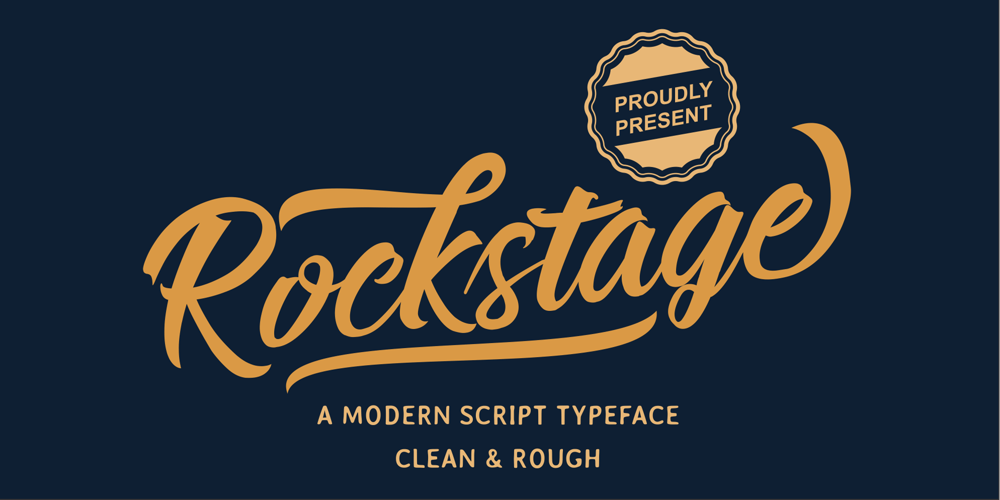
Rockstage
Rockstage font
Rockstage Font Family was designed by SU KASIH and published by Mozatype. Rockstage contains 2 styles and family package options. Rockstage Calligraphy Font is an incredibly distinct, delicate and timeless handwritten font. It looks stunning on wedding invitations, thank you cards, quotes, greeting cards, logos, business cards and every other design which needs a handwritten touch.What’s Included :– Works on PC & Mac– Easy to use ( Installations )– Easy Convert to webfont– Compabilty Windows, Apple, Linux, Cricut, Silhouette and Other cutting machinesThanks for downloading, and I hope you enjoy it!